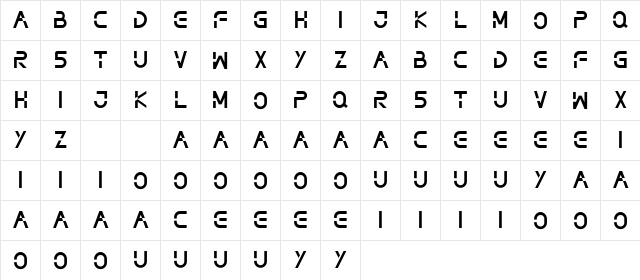
NOTHAN DEMO Regular Font Preview
NOTHAN DEMO Regular
NOTHAN DEMO Regular Font Details
| Foundry | edric studio |
| Designer | Ega |
Design Context for NOTHAN DEMO Typeface
NOTHAN DEMO offers clean, dependable letterforms without strong stylistic allegiance, making it a practical choice for designers who need flexibility.